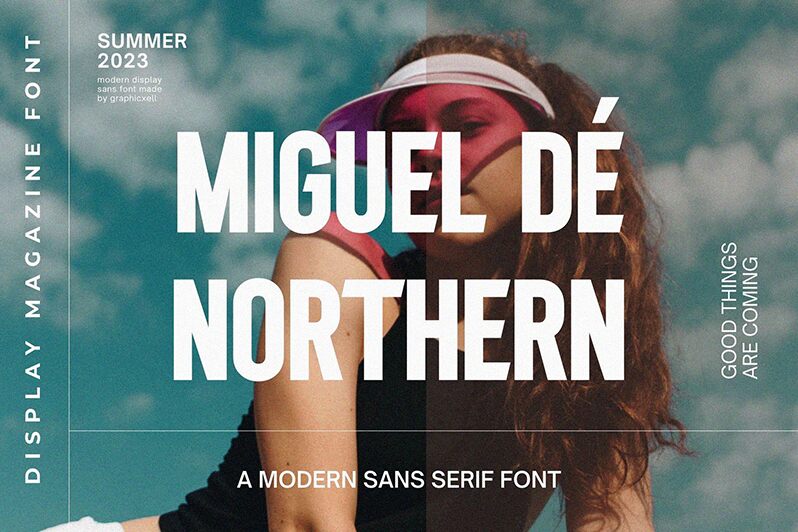
Miguel De Northern
Miguel de Northern font is a bold condensed geometric sans serif font created by Graphicxell. The font’s strong and assertive appearance makes it instantly recognizable, engaging viewers with its impactful presence. The style is modern, and with its versatile potential, the characters seem equally fitting both in larger text sizes for headlines as well as in smaller texts such as mobile applications or webpages.
Free to download and use in your projects, Miguel de Northern provides a plethora of options by being applicable to magazines, newspapers, fashion brands and labels related to clothes. It is also highly recommended for logo designs for car manufacturers or electric/electronic devices’ creators where technology meets power! Shop signs, shop window displays (try neon tube lights), poster ideas using paint markers are great suggestions too along with agenda covers editing where contact info can be featured inside your finished work afterwards swiftly after exporting!